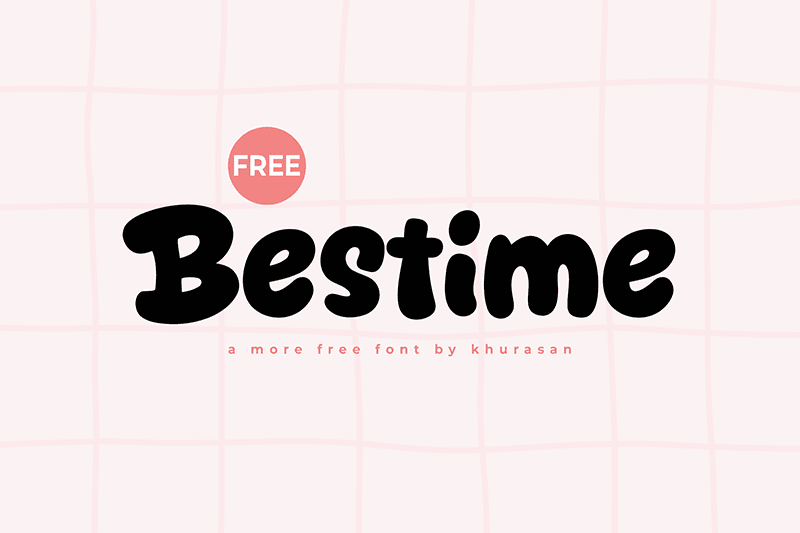
Bestime Font is a modern and charming typeface that brings a fresh, cute vibe to a wide variety of design projects. Its clean lines and playful character make it ideal for creating eye-catching posters, logos, magazines, book covers, banners, and much more. Whether you’re aiming for a fun or polished look, Bestime effortlessly adds a touch of personality that helps your designs shine.
This versatile font adapts seamlessly to numerous creative applications, making it a valuable addition to any designer’s toolkit. Its balanced style allows it to work beautifully across both digital and print mediums, giving you the flexibility to bring your ideas to life in a unique and engaging way. With Bestime, your projects gain an instant boost of charm and modern flair.
Perfect for creatives seeking a font that stands out without overwhelming, Bestime enhances your designs with its approachable yet stylish presence. Add this remarkable font to your collection and watch your creative concepts come alive with fresh energy and distinctiveness.